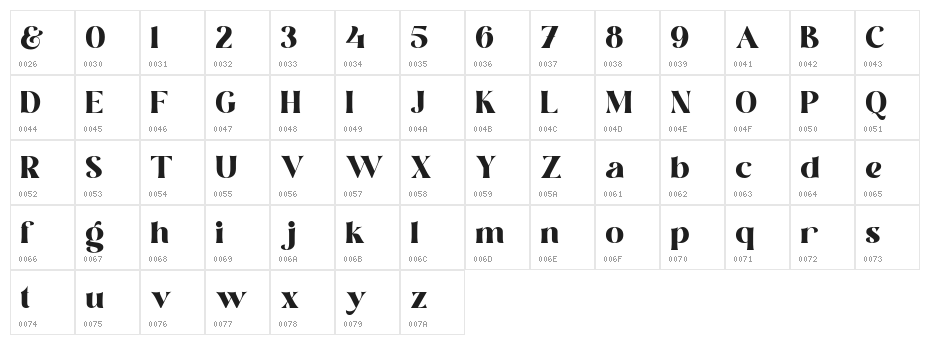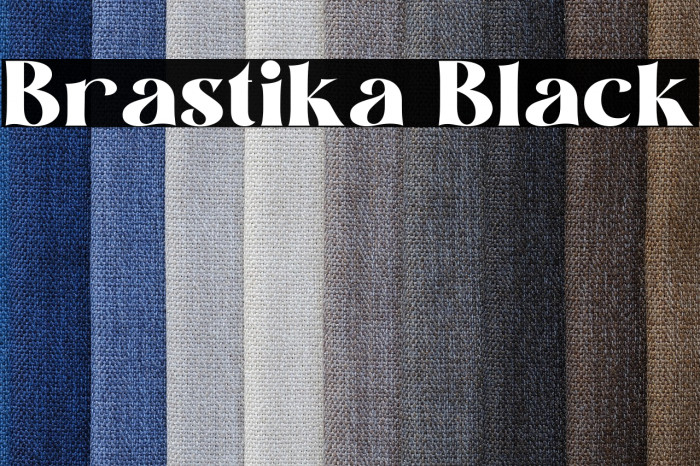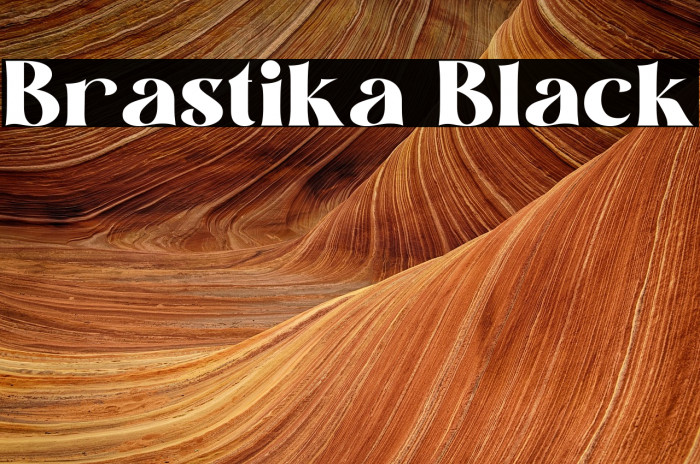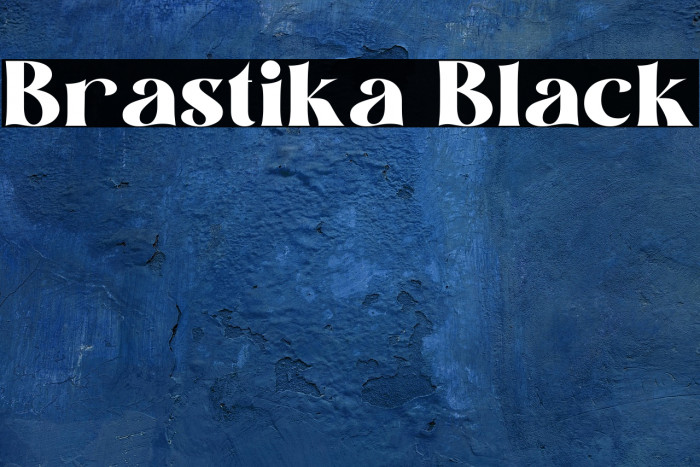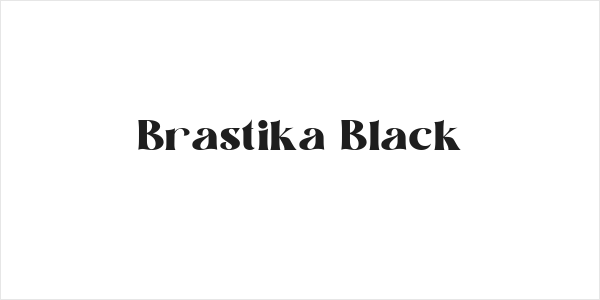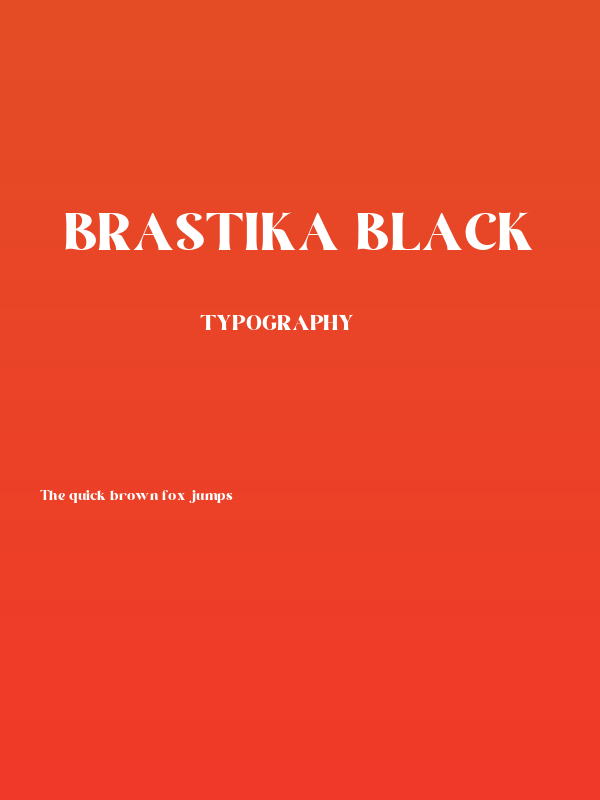
Brastika Black Font
Brastika Black Description
This font features a bold and dynamic style with thick strokes and high contrast between thick and thin lines. The characters exhibit a strong presence, making them suitable for impactful designs. The uppercase letters are particularly striking, with sharp serifs and a slightly condensed form that enhances their boldness. The lowercase letters maintain the same boldness, with rounded edges that add a touch of softness to the overall appearance. The numerals are equally bold, ensuring consistency across all characters. This font's unique style is perfect for creating eye-catching headlines and logos.
| Proposed Projects | Ideal for branding, advertising, poster design, and any project requiring a strong visual impact. |